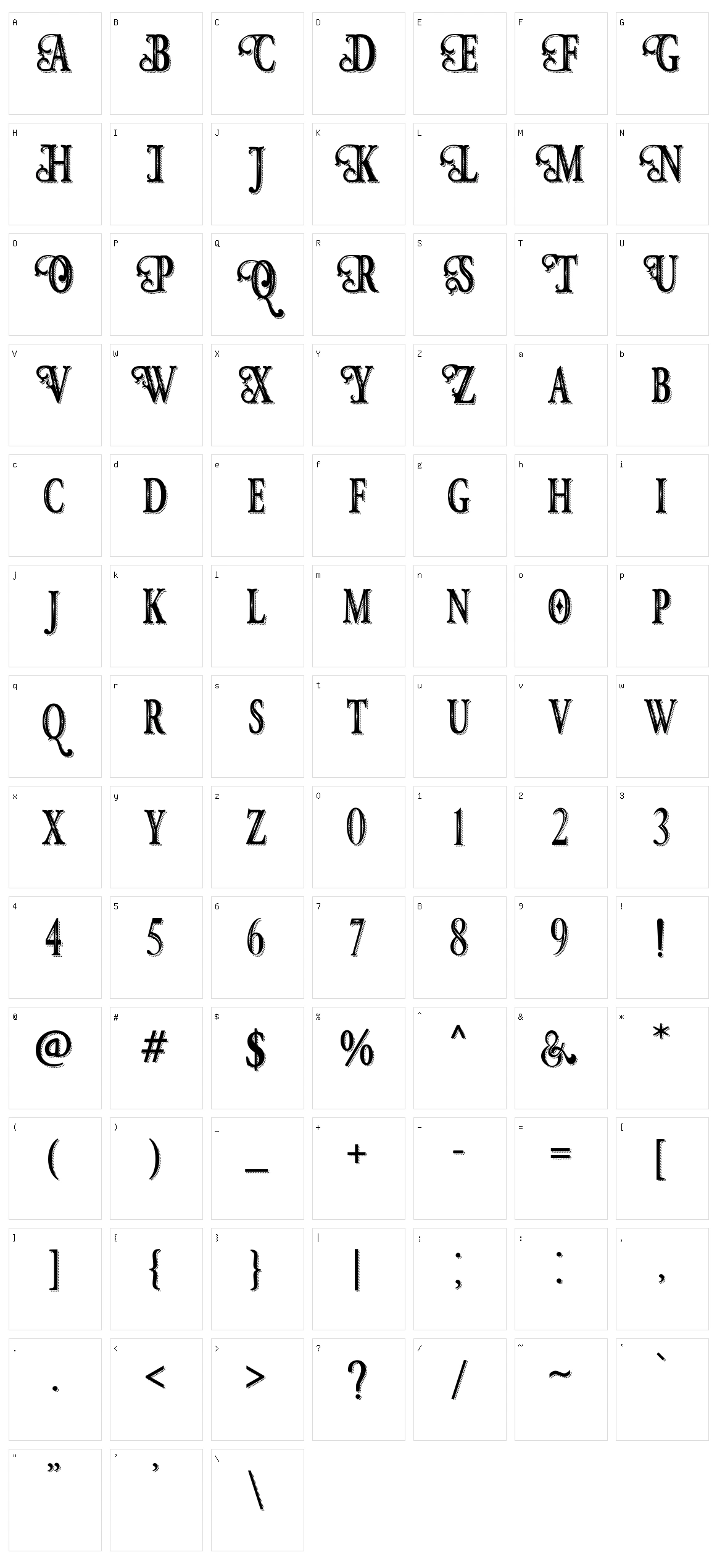
Hunter Heart
FHFont
Hunter Heart Free Font
This is Display Font, Suitable for design, element design, wedding, event, t-shirt, logo, badges, sticker, and awesome work, etc...